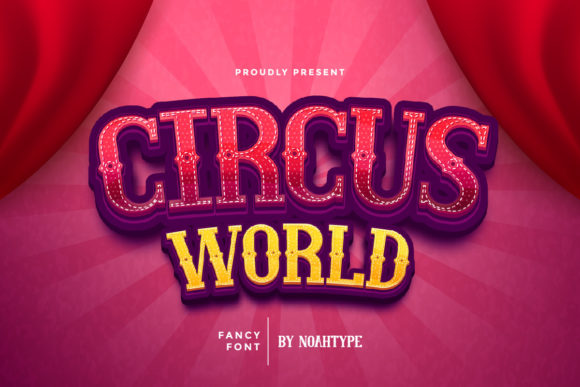
Journey into the enchanting realm of Circus World Font, where whimsy and wonder collide. This captivating display font, masterfully crafted by NoahType, is a spectacle of creativity and imagination. Immerse yourself in a world of vibrant colors, vibrant personalities, and the thrill of the big top.
Inspired by the magical allure of the circus, Circus World Font is a tribute to the extraordinary performers who ignite our senses with their gravity-defying feats, mirthful antics, and awe-inspiring artistry. Let your designs dance with the rhythm of the circus, capturing the essence of joy, laughter, and boundless possibilities.
With its playful curves and enchanting details, Circus World Font breathes life into your creations. Each character pirouettes across the page like an agile acrobat, captivating audiences with its charm and uniqueness. Unleash your imagination and embark on a typographic adventure, transforming ordinary words into captivating tales.
Whether you're a seasoned graphic designer or a novice looking to add a touch of magic to your projects, Circus World Font is your perfect companion. Its versatility shines in a myriad of applications, from eye-catching logos and posters to playful T-shirt designs and vibrant social media graphics. Let your creativity take center stage and let Circus World Font amplify your message with its enchanting flair.
Circus World Font: Where Dreams Take Flight